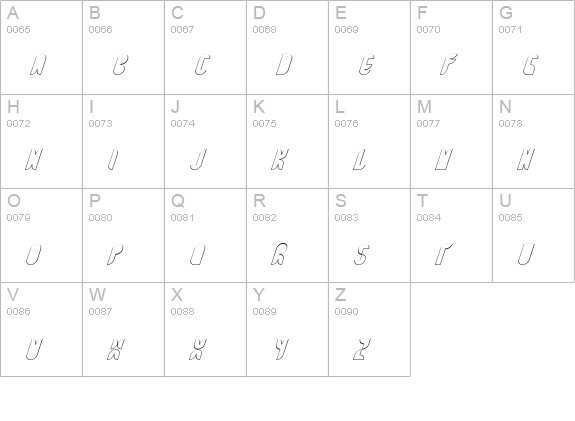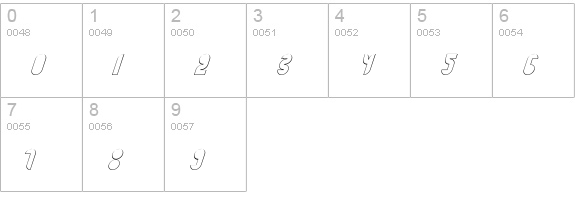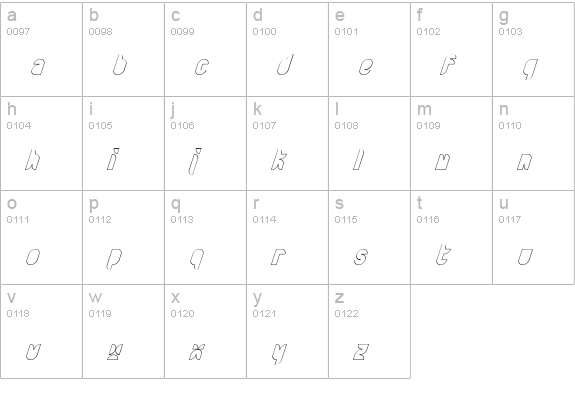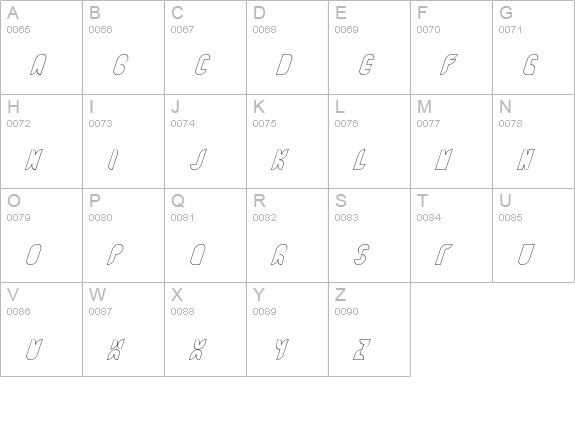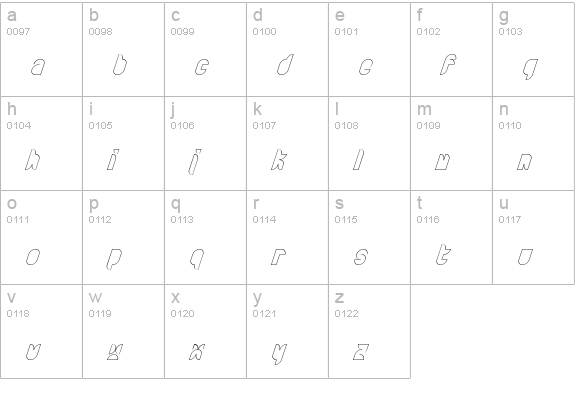
Introducing Bath BlackItalicOutline, a stylish and sophisticated font that exudes elegance and modernity. This unique typeface features sleek lines and a bold, italicized design that will make your projects stand out. Whether you're creating a logo, poster, or website, Bath BlackItalicOutline is sure to make a lasting impression. And the best part? This font is completely free for personal and commercial use! You can download Bath BlackItalicOutline at FontsMarket.com and start using it in your designs today. Don't miss out on this fantastic opportunity to elevate your projects with a beautiful and eye-catching font.